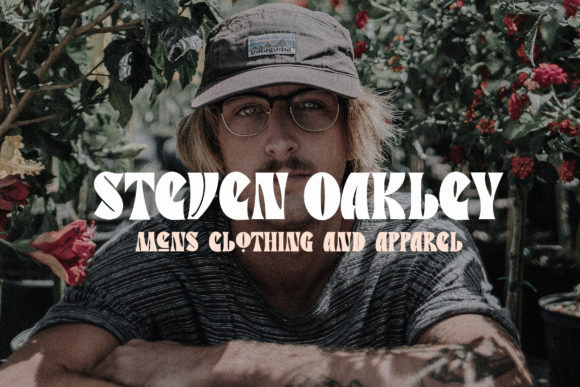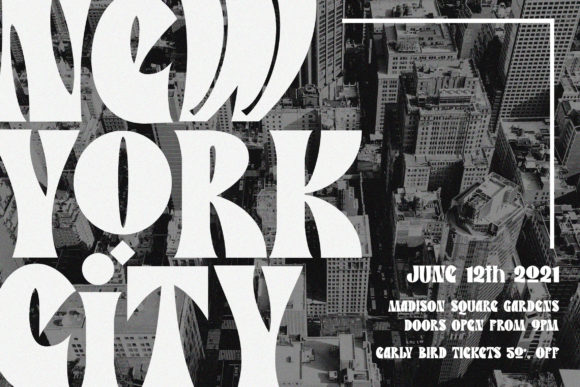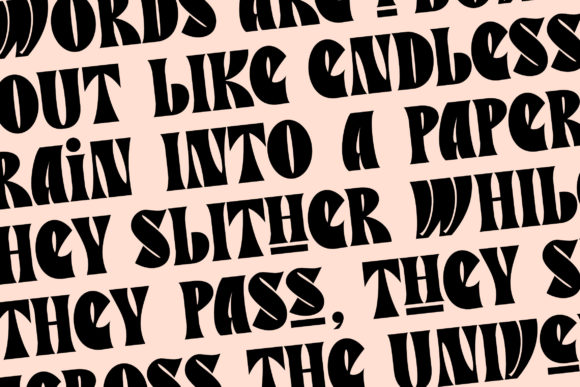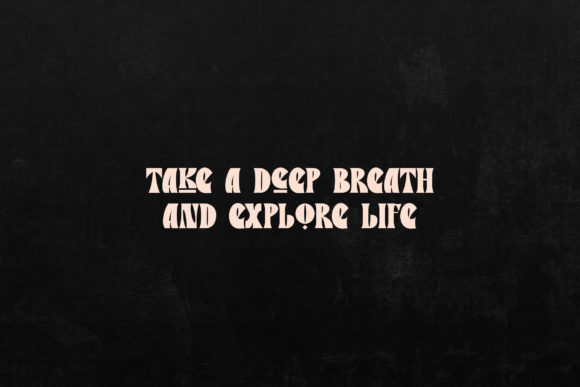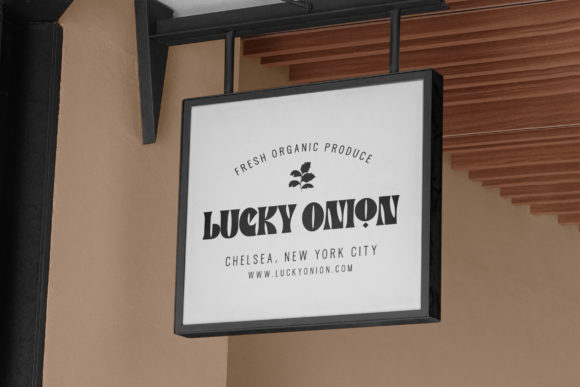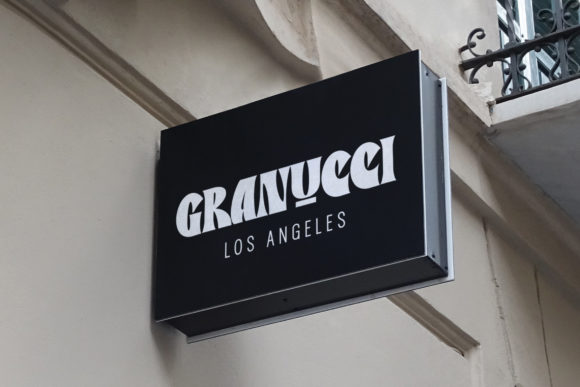
Introduction to Monotones Font Font
Fonts play a crucial role in design, and the Monotones Font font is a typeface that brings both character and versatility to any project. Whether you’re working on a branding project, a website, or a print design, the Monotones Font font offers a unique style that can elevate your work.
Monotones is a cool, whimsical and fun display font.
Key Features of Monotones Font Font
Why Choose Monotones Font Font?
The Monotones Font font is more than just a typeface – it’s a design tool that helps you communicate your message with style and clarity. Its unique character set and versatile design make it suitable for a wide range of applications, from elegant invitations to bold headlines.
With its carefully crafted letterforms and balanced proportions, the Monotones Font font ensures readability and visual appeal across all mediums.
What makes Monotones Font font special?
The Monotones Font font stands out with its unique design, exceptional readability, and versatility across various design applications.